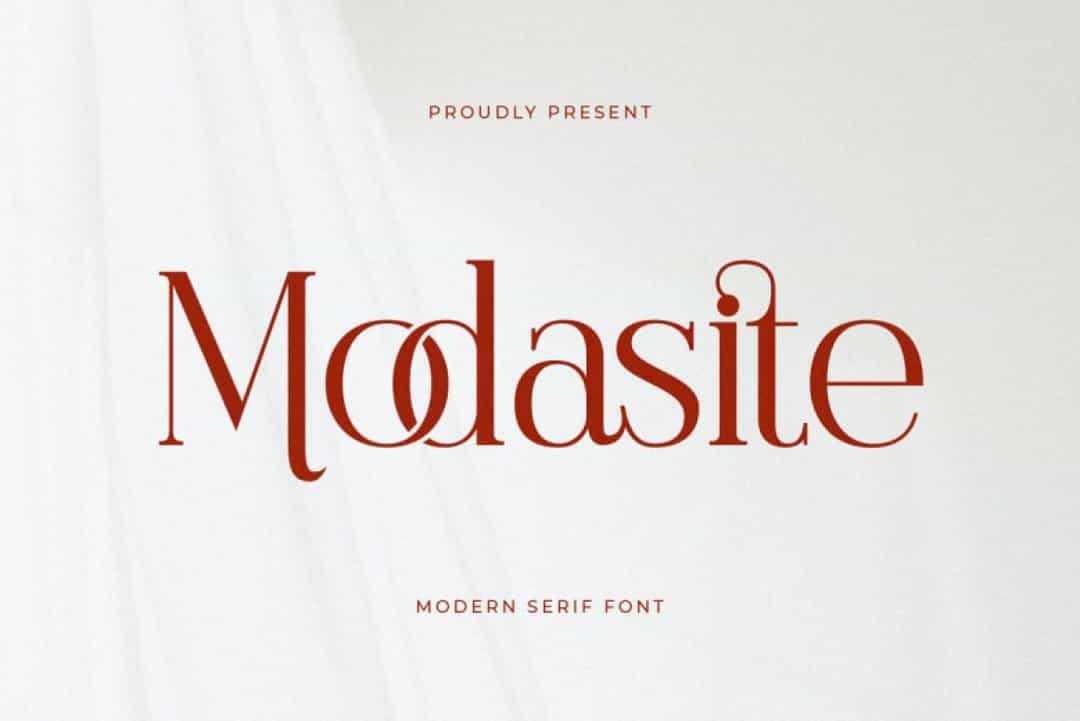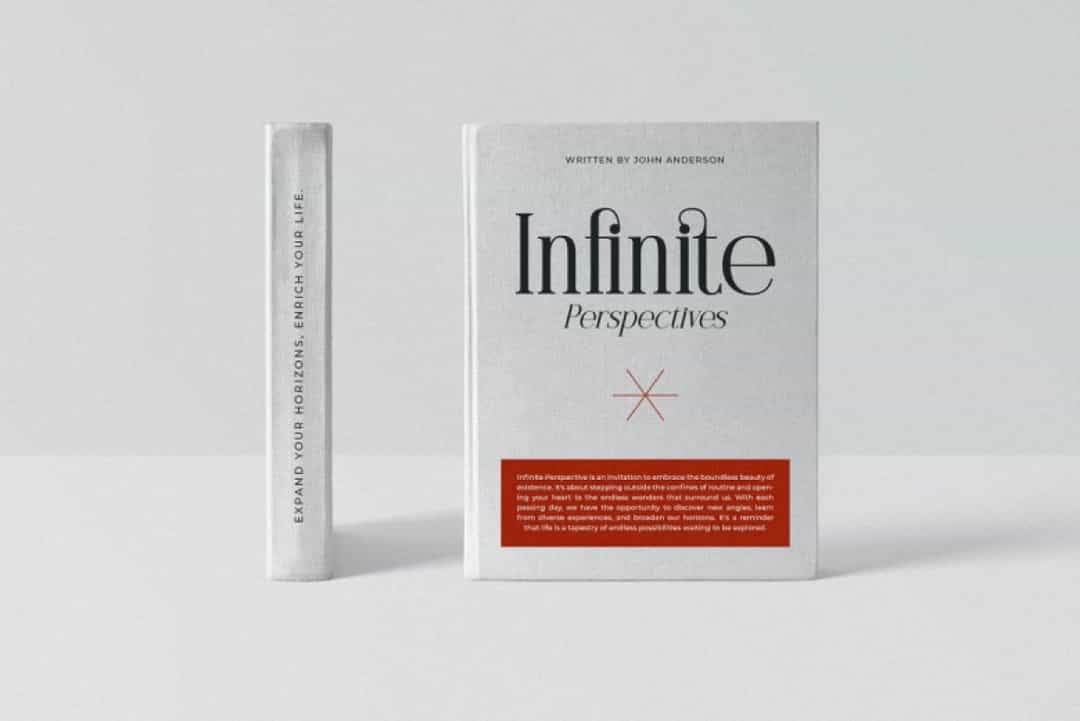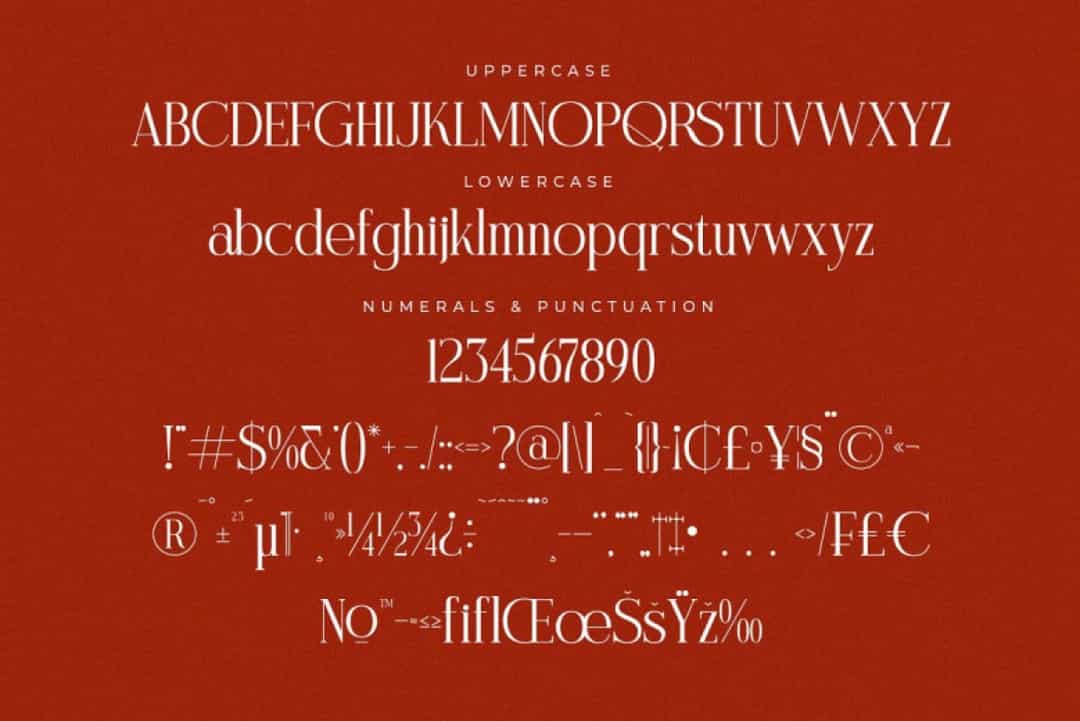
Modasite is an elegant luxury serif typeface suitable for a range of projects including logos, branding designs, homeware packaging and packaging of products; mugs posters quotes bags shopping; t-shirts book covers name cards card invitations greeting cards labels photography watermark special events among many other beautiful projects that call for this luxurious style of typeface.